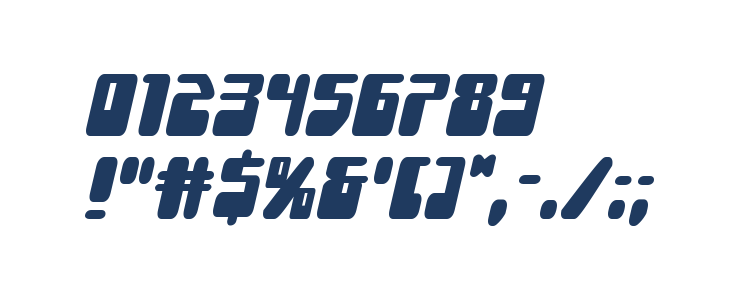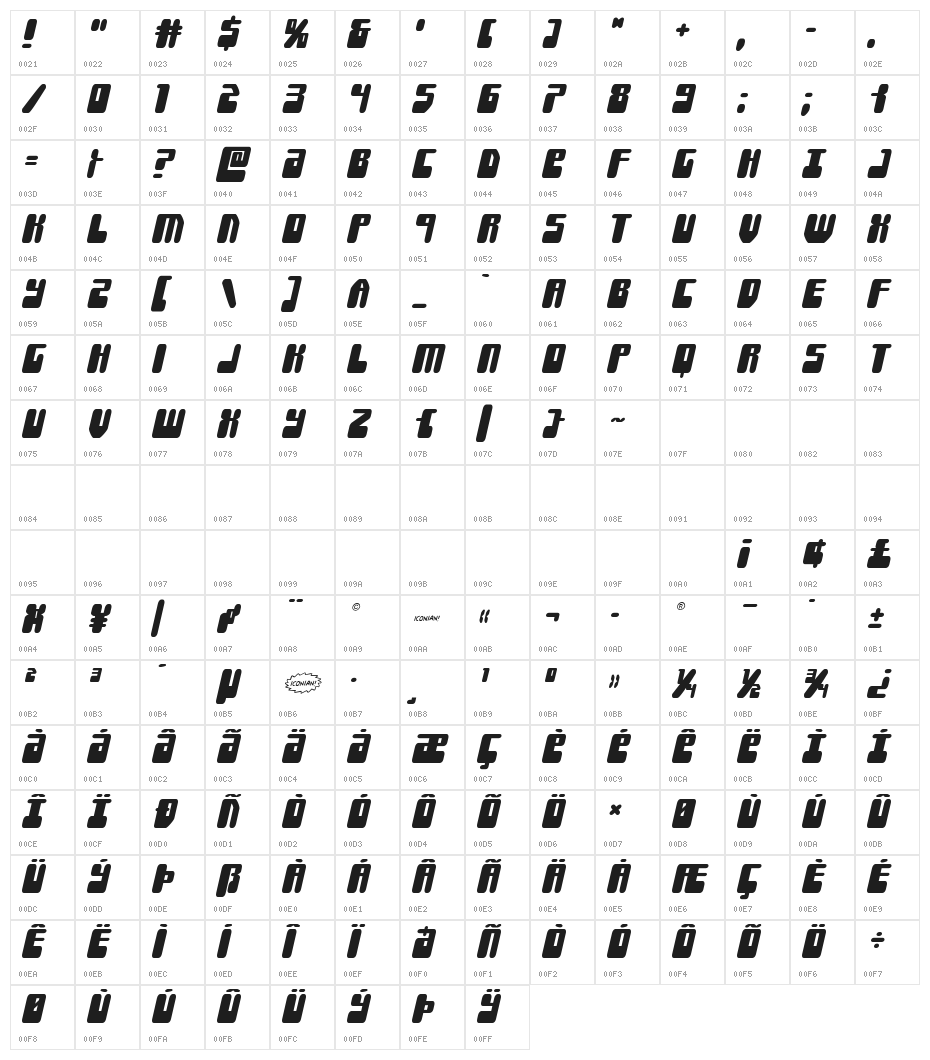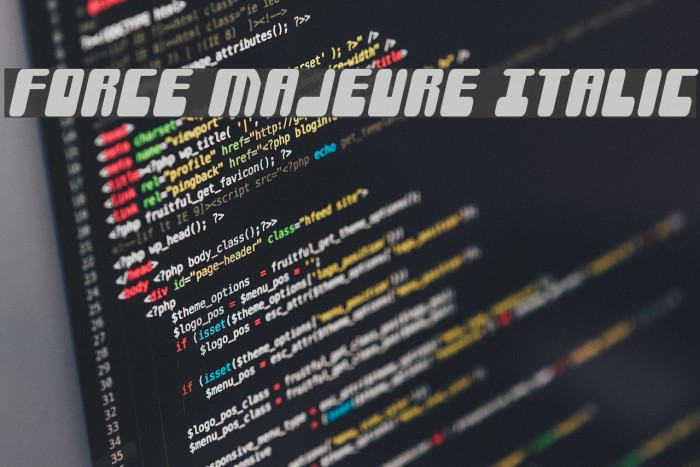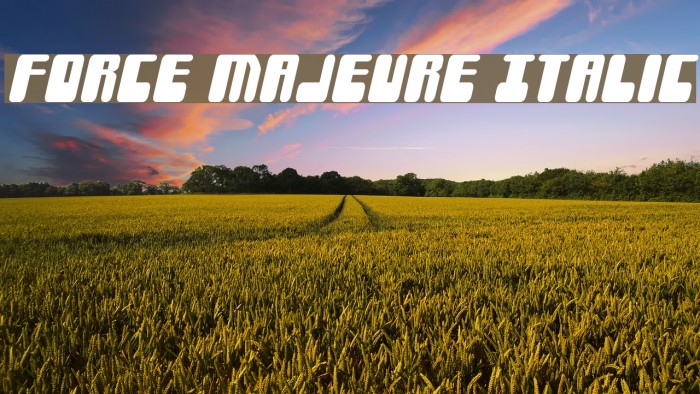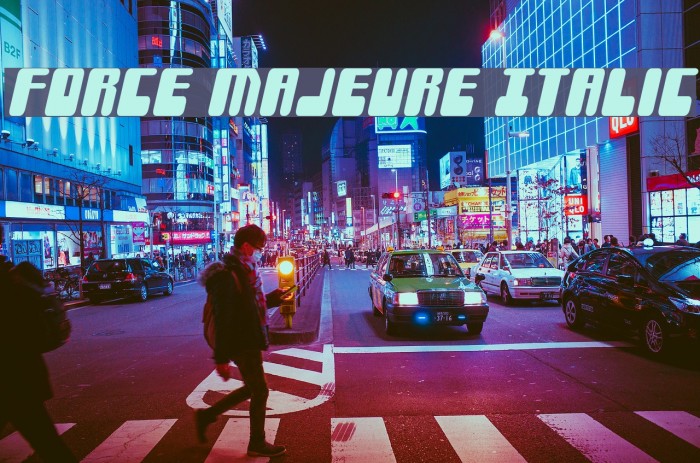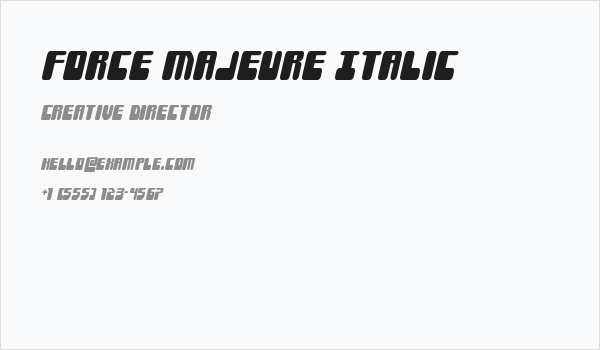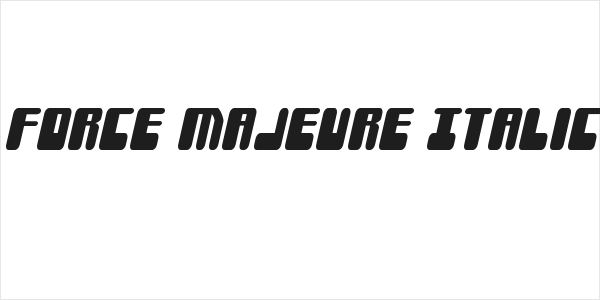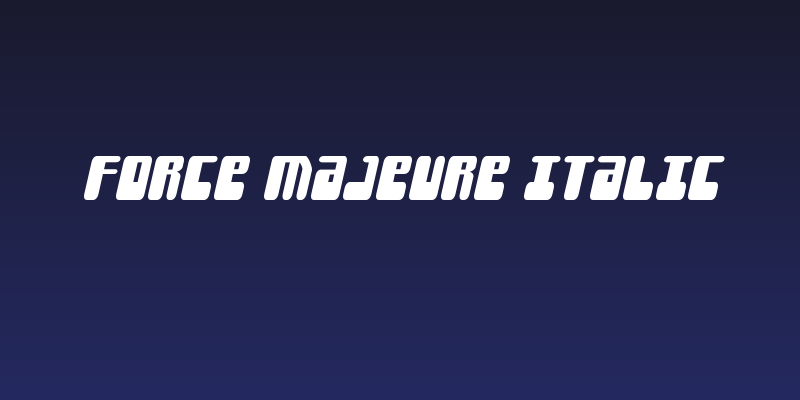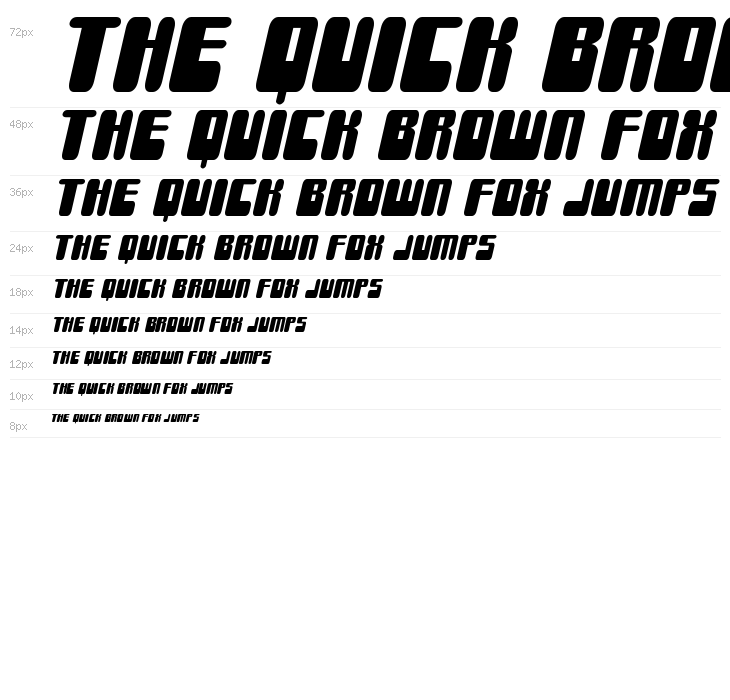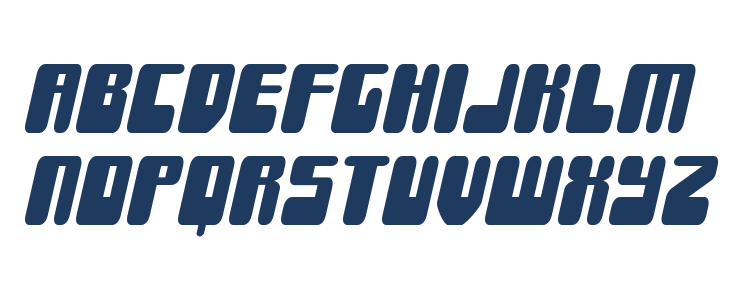
Force Majeure Italic Font
Force Majeure Italic Description
This font features a bold, italicized style with a modern and dynamic appearance. The characters are designed with a strong, forward-leaning slant, giving a sense of motion and urgency. The strokes are thick and consistent, contributing to a high contrast between the characters and the background. The overall design is sleek and contemporary, with rounded edges that soften the boldness of the font. The spacing between characters is tight, enhancing the compact and impactful look. This font is ideal for making statements and grabbing attention, suitable for various creative and promotional projects.
Proposed ProjectsIdeal for headlines, posters, branding, and advertising where a strong, modern impact is desired.